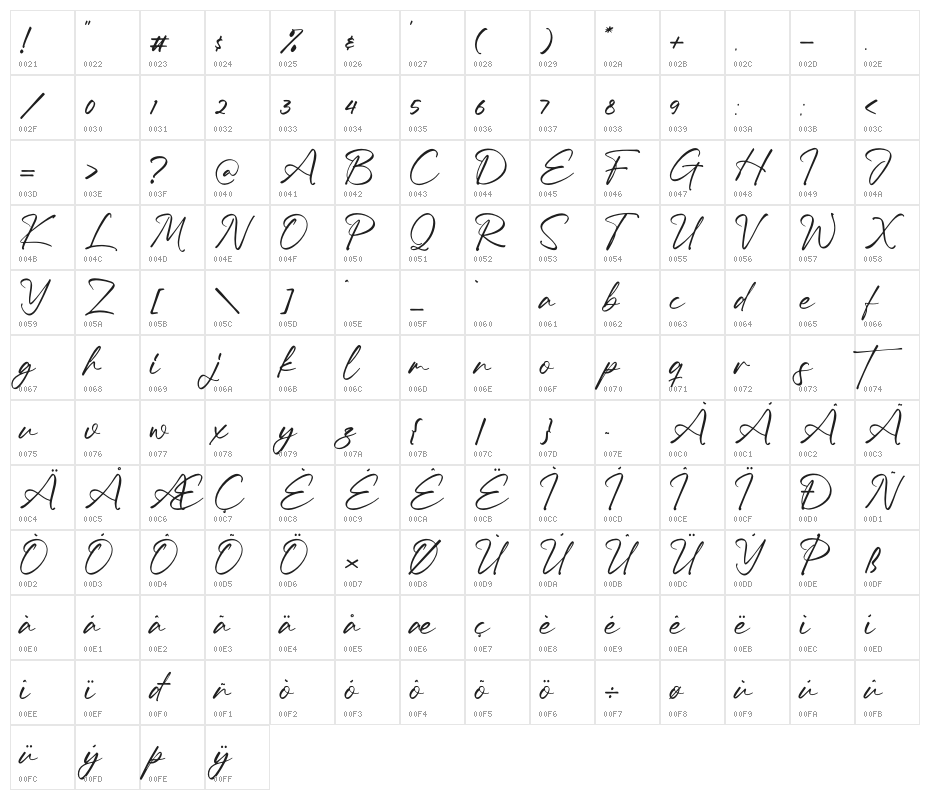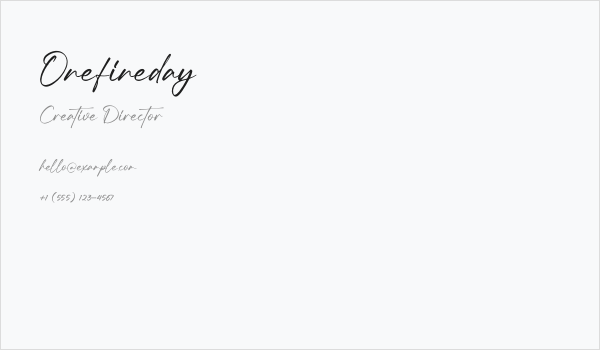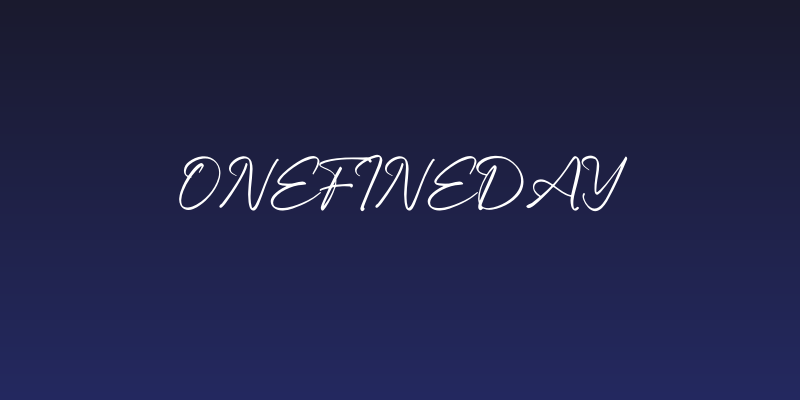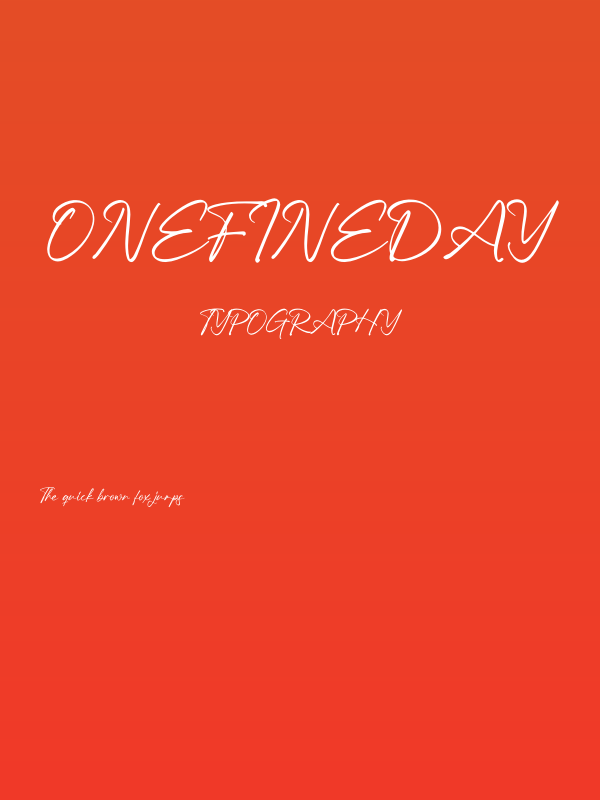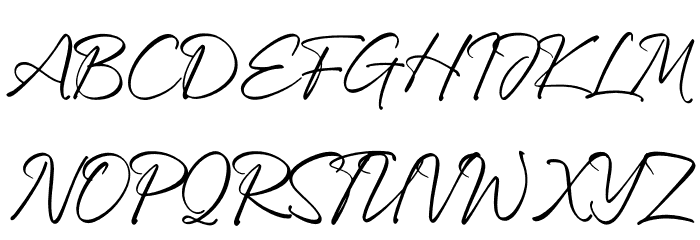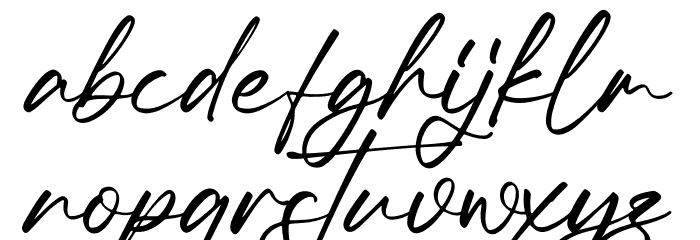
Onefineday Font
Onefineday Description
A flowing, cursive script font with a handwritten style, featuring smooth, connected letters and a casual, elegant appearance.
| Use Case | Logos, Invitations, Greeting cards |
| Proposed Projects | Invitations, greeting cards, personal branding. |